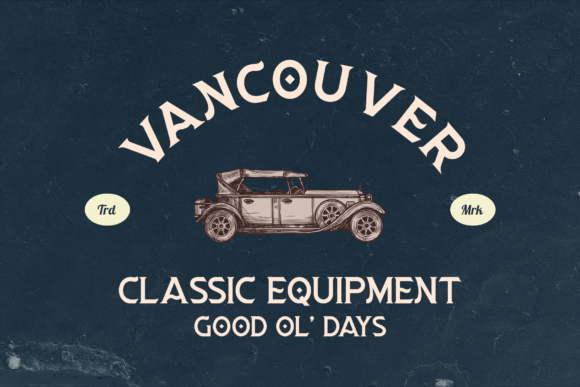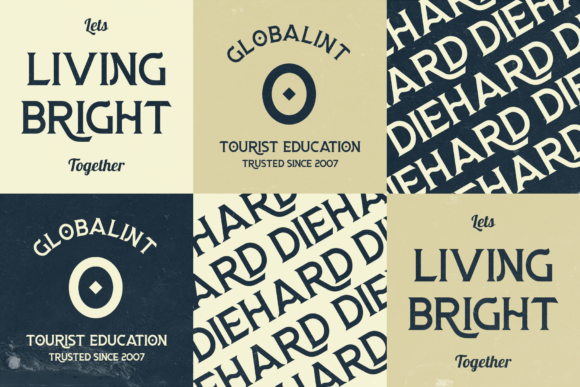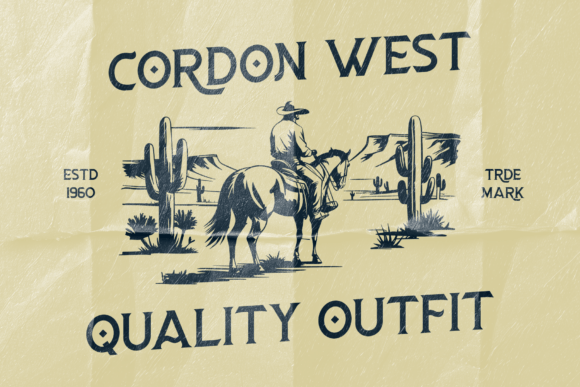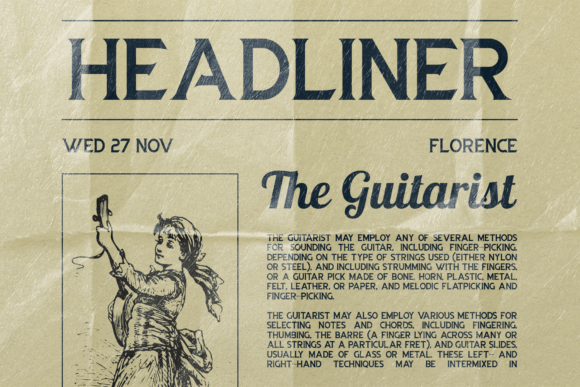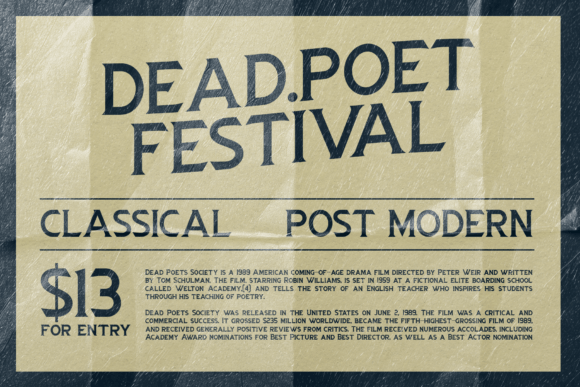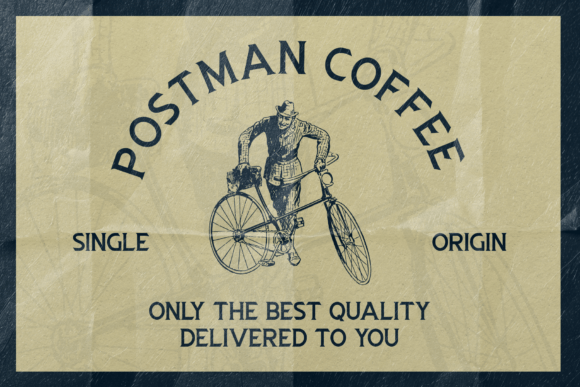
The Quest for the Perfect Vintage Font: Discovering Forence
I still remember the frustration of searching for the perfect font for a client’s branding project. It was a vintage-inspired logo, and I wanted something that would capture the essence of a bygone era while still feeling modern and fresh. Hours turned into days, and days into weeks, as I scrolled through font after font, but none seemed quite right. That was until I stumbled upon Forence Font. ✨
A First Impression: What Makes Forence Special
Forence is a vintage serif font that combines the charm of classic typography with a modern touch. It’s designed with lots of alternate characters, making it incredibly versatile for various design projects. Whether you’re working on logos, branding, or just want to add a touch of elegance to your craft projects, Forence is an excellent choice.
What I Love About Forence:
- ✨ Unique Alternates: Forence comes with a wide range of alternate characters, ligatures, and stylistic alternates, which give you plenty of creative options.
- ✅ Vintage Aesthetic: The font has a beautiful, classic feel that’s perfect for projects requiring a vintage or retro look.
- 💻 Crossover Appeal: It’s suitable for both digital and print projects, making it a great addition to any design toolkit.
- 🤔 Learning Curve: With so many alternates and features, it might take some time to get familiar with Forence’s capabilities.
- ⚠️ Overuse: Because it’s so versatile and beautiful, there’s a risk of overusing the font in a single project, which can make it feel less special.
The Story Behind Forence: Designer Inspiration
Forence was inspired by the classic typography of European vintage posters and the elegant serifs of traditional printing. The designer aimed to capture the essence of these classic fonts while infusing them with modern sensibilities and versatility. The result is a font that feels both nostalgic and contemporary.
Q: What makes Forence Font unique?
A: Forence is unique due to its blend of vintage charm and modern design. It features a wide range of alternate characters, ligatures, and stylistic alternates, making it highly versatile.
Q: Is Forence suitable for body text?
A: While Forence is beautiful and highly readable, its vintage and elegant feel might make it more suited for headings and titles. For body text, you might prefer a more straightforward, easy-to-read font.
Forence Font is a beautiful addition to any designer’s toolkit, offering a perfect blend of vintage charm and modern versatility. Its range of alternates and elegant feel make it ideal for a wide variety of projects, from logos and branding to crafts and hobbies.